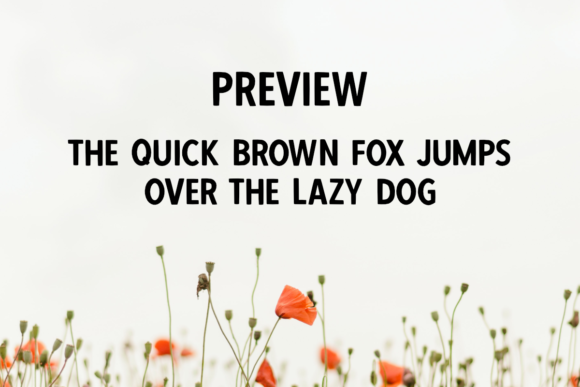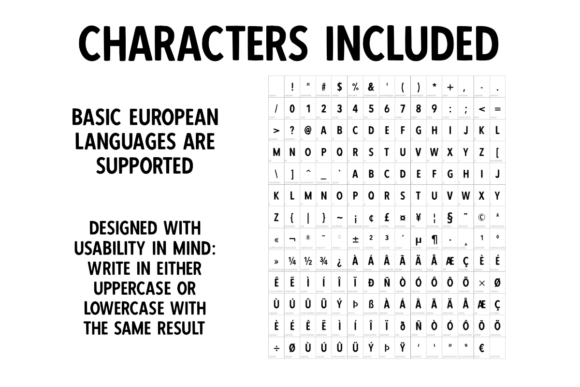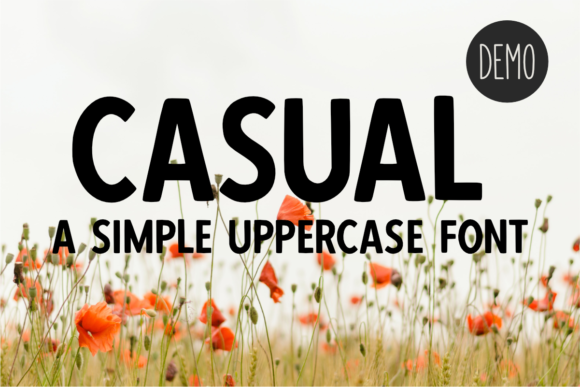
About Casual Font
Casual is a bold and assertive display font. No matter the topic, this font will be an incredibly asset to your fonts’ library, as it has the potential to elevate any creation.